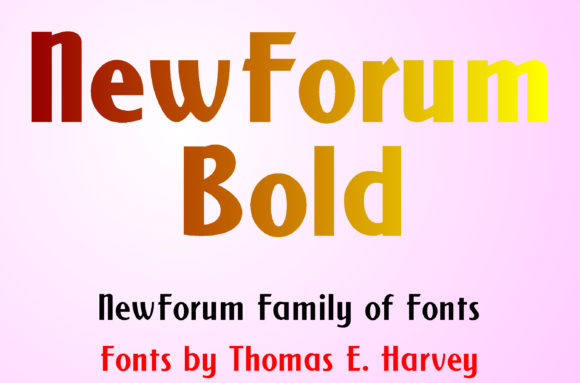
Introducing New Forum Bold - The Epitome of Sophistication and Elegance for Your Designs
In a world saturated with mundane and monotonous fonts, New Forum Bold emerges as a beacon of creativity, inviting you to embark on a journey of visual artistry. This sans serif font, meticulously crafted by the visionary Thomas E. Harvey, is not merely a collection of letters; it's an expression of elegance, a testament to the power of typography.
With its clean lines, sharp edges, and a hint of playfulness, New Forum Bold commands attention without overpowering. It's a font that whispers sophistication, exuding an aura of timeless beauty that transcends fleeting trends. Whether you're a seasoned designer or just starting your creative journey, New Forum Bold will elevate your designs to new heights.
Imagine the impact of your posters, the allure of your flyers, the allure of your prints when adorned with the exquisite curves and angles of New Forum Bold. Its versatility knows no bounds, allowing you to explore a boundless realm of design possibilities. Unleash your creativity and let New Forum Bold guide you towards masterpieces that captivate and inspire.